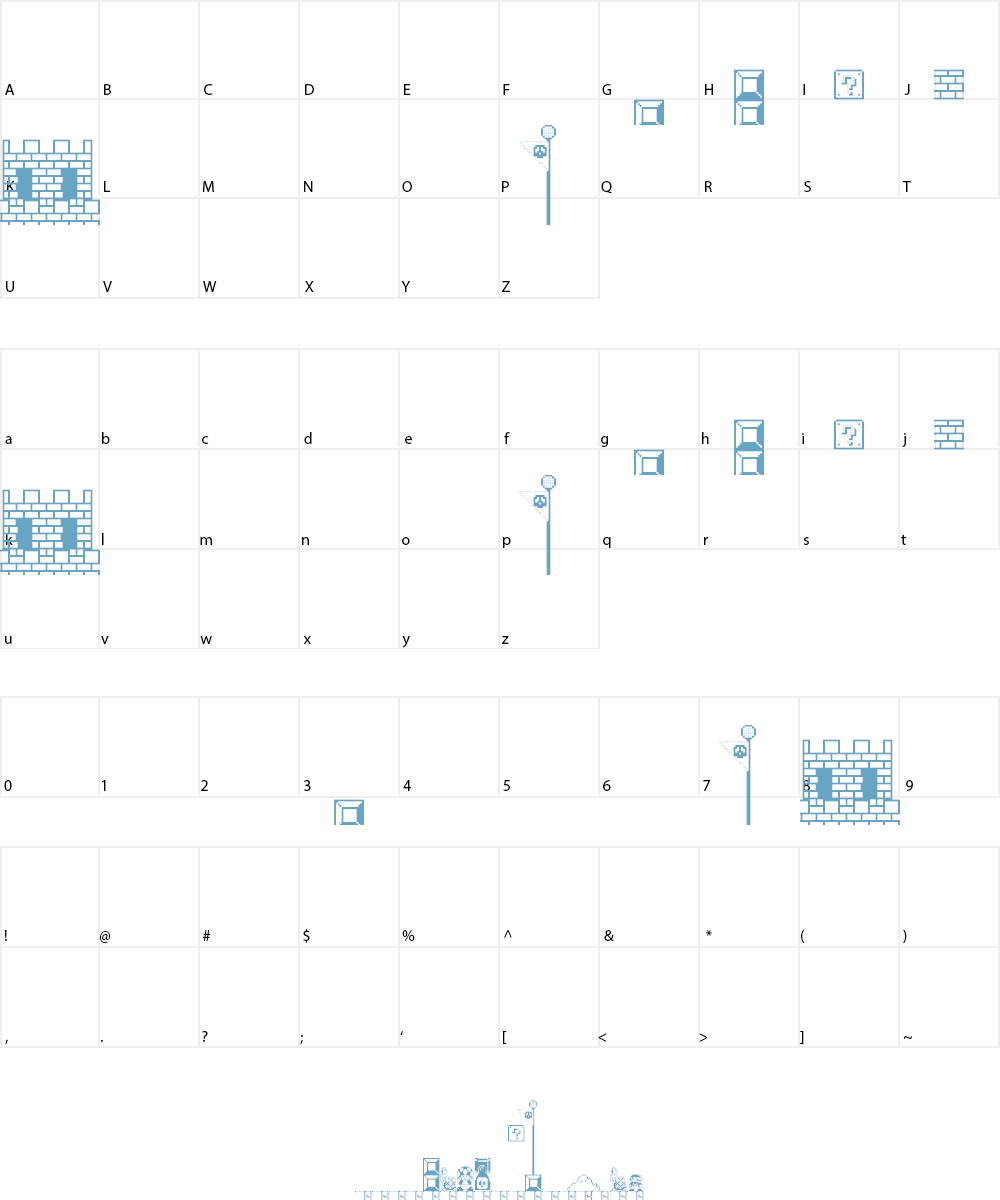
Type out a new world in the Mushroom Kingdom 1985-style with the font that inspired MARIO MAKER on WiiU*!
(* possibly)
What was a work-in-progess is now finished with complete keyboard support, a few more dingbats, and widened spaces to make gaps easier.